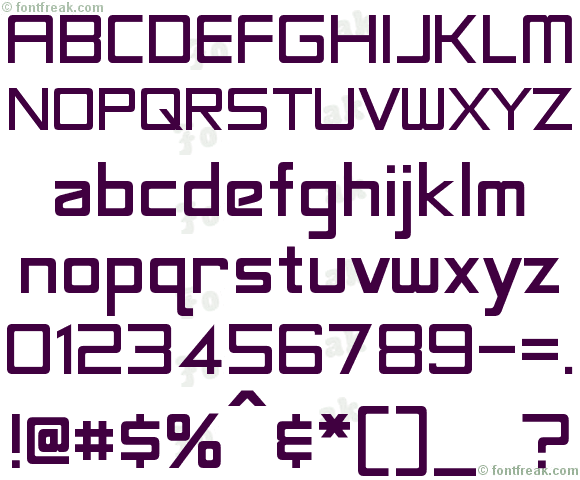
LaBouf
LaBouf is a distinctive display font designed by Neale Davidson in 2011, characterized by its bold, geometric forms and playful aesthetics. This sans-serif typeface stands out with its thick stroke weight and minimal contrast, making it an ideal choice for various design applications. The letters exhibit a slightly condensed form, providing a compact and impactful visual presence. The spacing is well-balanced, ensuring legibility while maintaining a modern and trendy look. LaBouf features subtle decorative elements that add personality without overwhelming the overall design, making it versatile for numerous creative projects.
This font is particularly well-suited for use cases such as eye-catching movie posters, vibrant restaurant menus, and engaging promotional materials. Its playful nature makes it an excellent choice for children's products, events, or brands seeking to convey a fun and approachable image. Additionally, LaBouf can enhance social media graphics and website headings, giving a fresh and contemporary feel to digital content. The target audience for this font includes graphic designers, small business owners, and content creators who are looking to make a memorable impression with their branding and marketing materials.
What makes the LaBouf font stand out is its perfect blend of boldness and charm, which can elevate any project it graces. Its unique characteristics draw attention while retaining readability, making it a remarkable asset for those who want to leave a lasting impact. With a LaBouf font free download available, designers and creatives can easily incorporate this engaging typeface into their work, enhancing their designs with a touch of flair and personality.